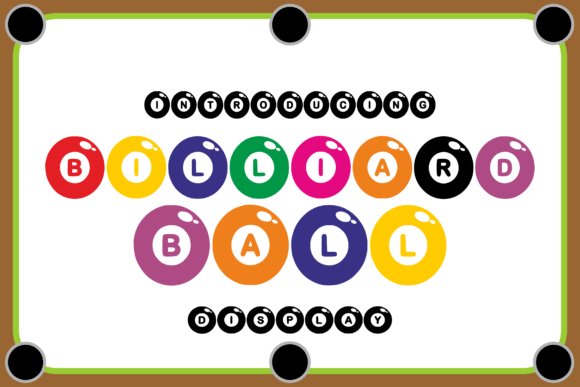
Get Ready to Roll with the Perfect Design Companion: Billiard Ball Font
Who hasn’t been captivated by the vibrant colors and charming roundness of classic billiard balls? It’s that instant spark of creativity that got you thinking about bringing a bit of whimsy into your next design project. Imagine being able to capture that same essence in your artwork and infuse it with a playful touch.
Enter the “Billiard Ball Font”, a delightful and unique typeface that embodies the carefree spirit of those iconic balls. This font is designed to add a dash of fun and personality to your designs, making it perfect for everything from party invitations and stickers to coffee mugs and greeting cards. For designers, the Billiard Ball Font is a valuable addition to their toolkit, offering endless possibilities for creative expression and bringing a smile to the faces of their audience.
Key Features of Billiard Ball Font
- Character Set: The font includes a wide range of characters, including uppercase and lowercase letters, numbers, punctuation marks, and special characters, making it suitable for various design applications.
- Unique Characteristics: The font features a distinctive, rounded design with a subtle texture, giving it a nostalgic and retro feel. The unique ball-inspired shapes and smooth lines make it perfect for creating eye-catching and memorable designs.
- Legibility: Despite its unique design, Billiard Ball Font is highly legible, making it suitable for use in body text, headings, and titles. Its clear and readable characters ensure that your message is conveyed effectively to your audience.
Billiard Ball Font Review
Overall, I found the Billiard Ball Font to be an interesting, albeit niche, choice for designers. The font’s unique, 3D appearance of billiard balls as characters adds a playful touch to any design project. ✨
- The font’s 3D appearance creates a sense of depth and visual interest.
- It’s perfect for designs related to games, entertainment, or sports.
- The font is highly customizable, allowing for adjustments to size, color, and more.
- ⚠️ The font may not be suitable for formal or professional designs, as it can come across as too playful.
- ⚠️ The font’s uniqueness can also make it challenging to read, especially in large blocks of text.
- ⚠️ Limited support for non-Latin scripts may be a concern for designers working with international clients.
While the Billiard Ball Font has its drawbacks, it can be a great choice for designers looking to add some personality to their projects. With careful consideration of the font’s limitations, it can be a valuable addition to any design toolbox.
Use the Billiard Ball Font for creating playful and eye-catching designs.
Combine it with other bold fonts to create a striking visual effect.
Use the Billiard Ball Font for:
Creating invitations and party decorations.
Designing games and puzzles.
Developing brand identities for fun and playful businesses.